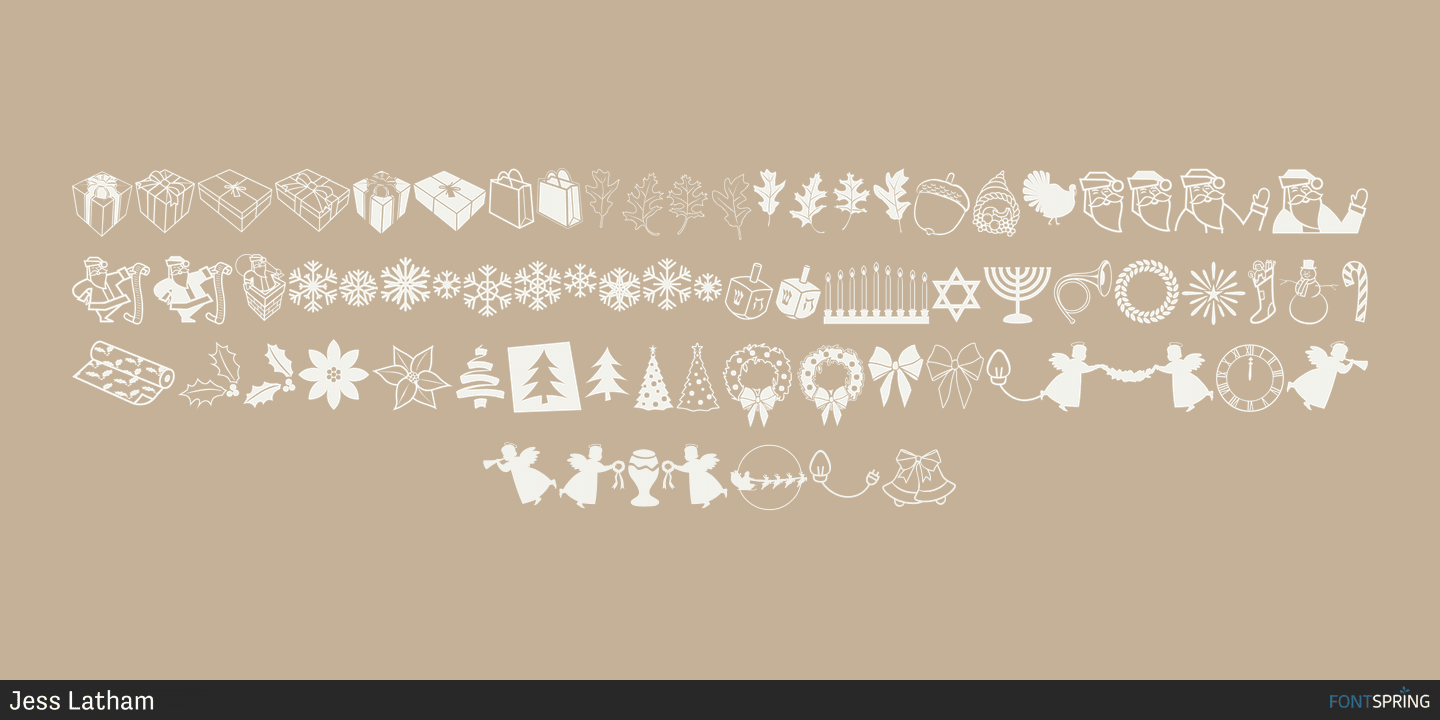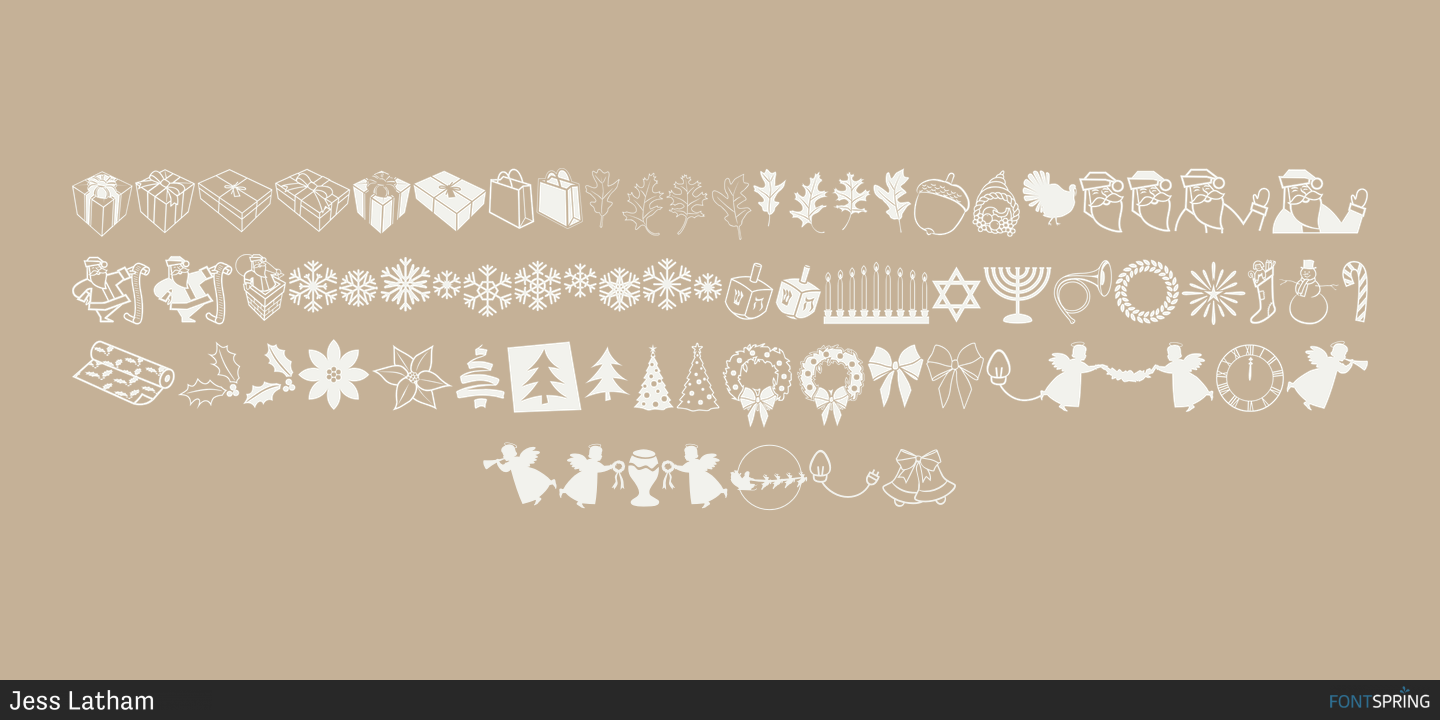
Tis The Season
Tis The Season is a dingbat font published by Blue Vinyl Fonts.
Tis The Season is the ultimate winter holiday dingbat! It’s got everything: Autumn Leaves, Snow Flakes, Thanksgiving, Christmas, Hanukah, Kwanza, Gift Boxes, Santas, New Years, etc…
Foundry Jess Latham